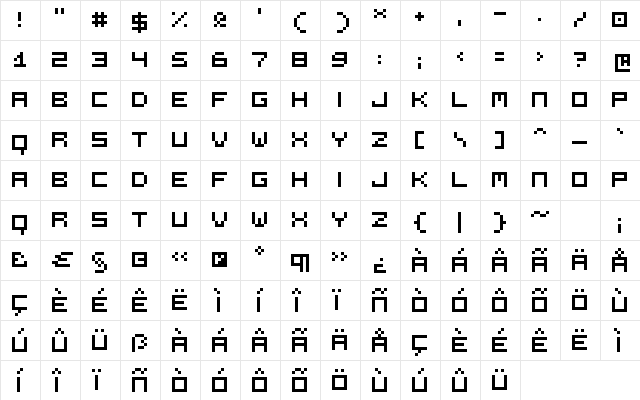
Bmf-00 Regular
Design Context for Bmf-00 Typeface
Bmf-00 takes a measured approach to typography — its balanced proportions and neutral character make it a reliable workhorse for both digital and print work.